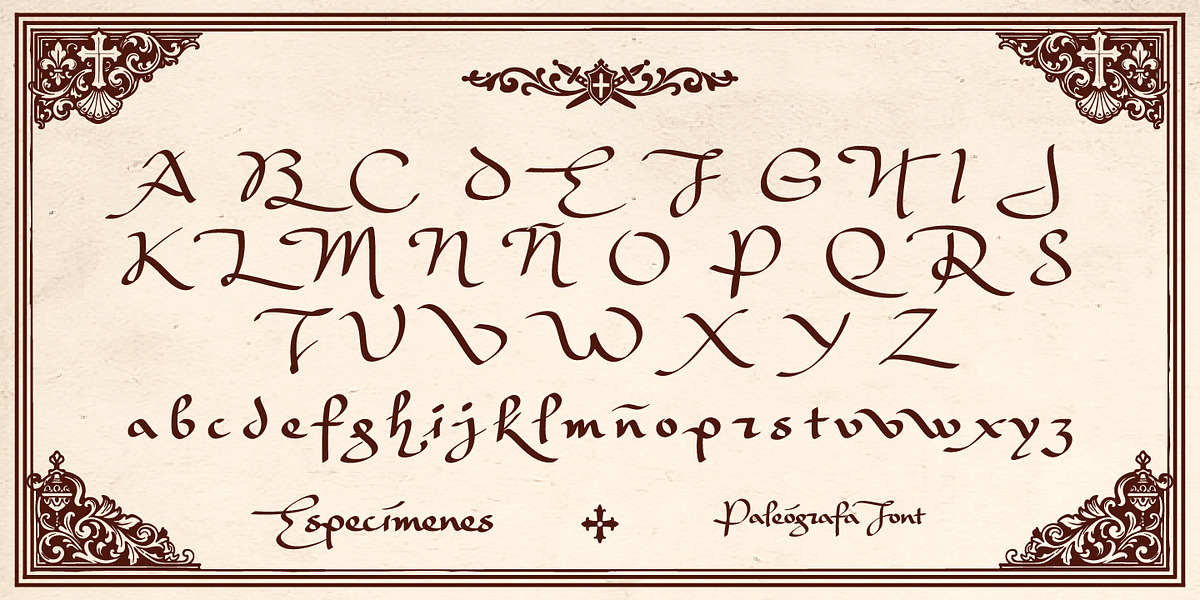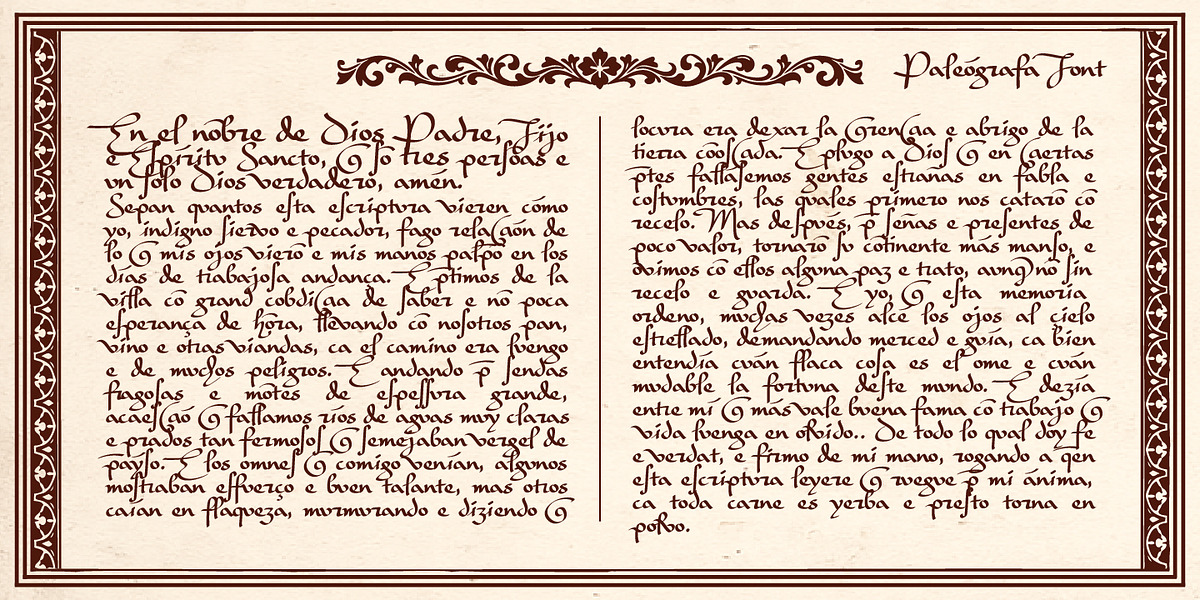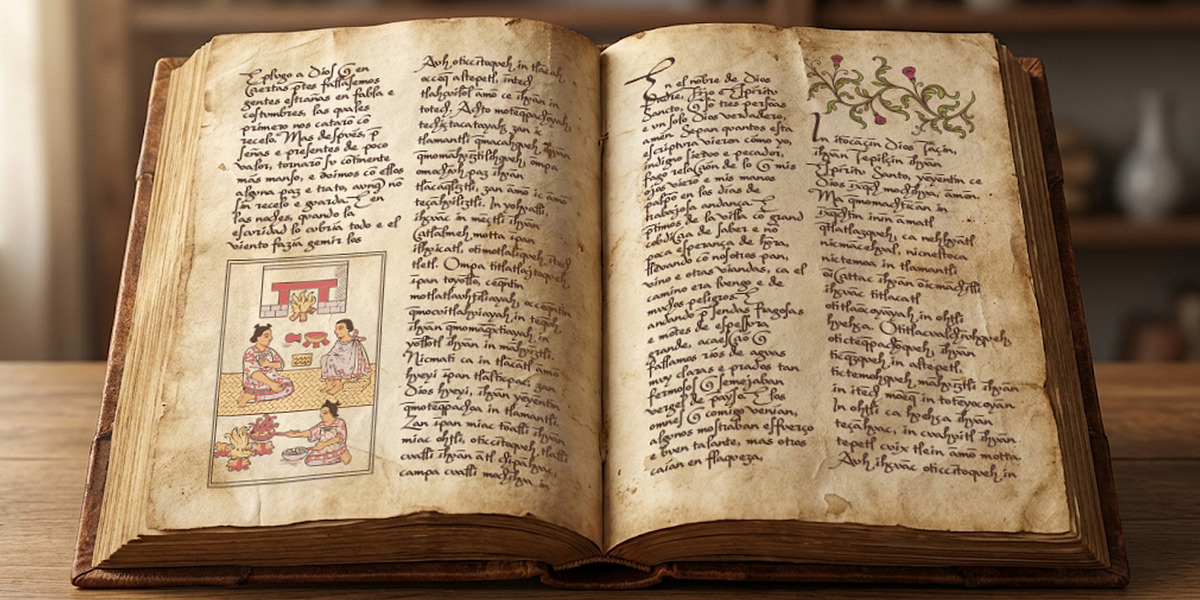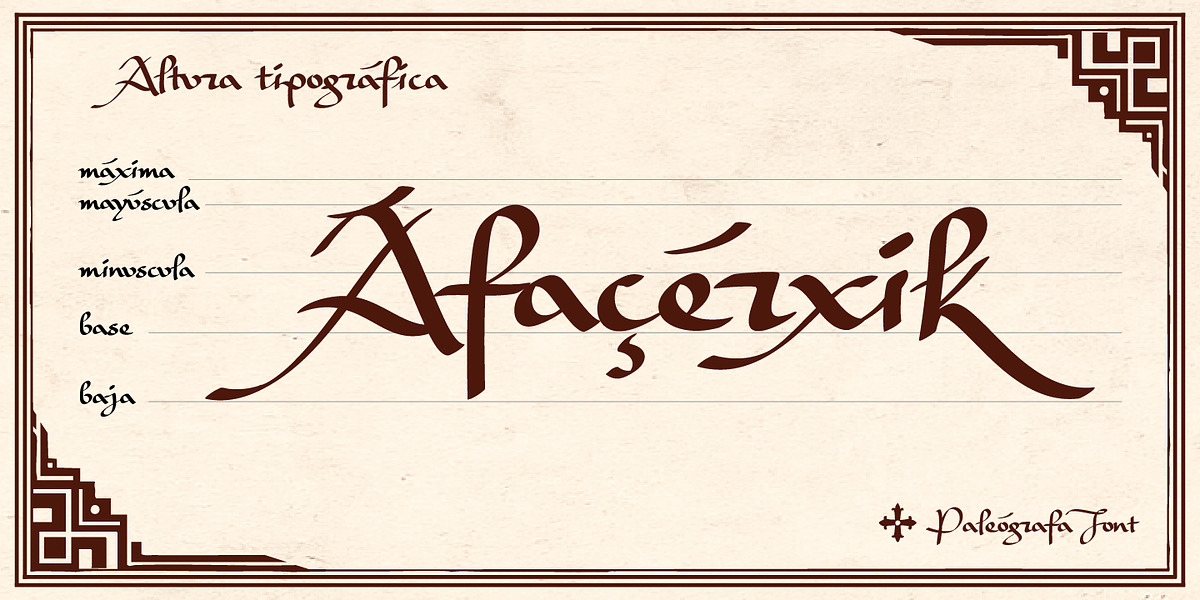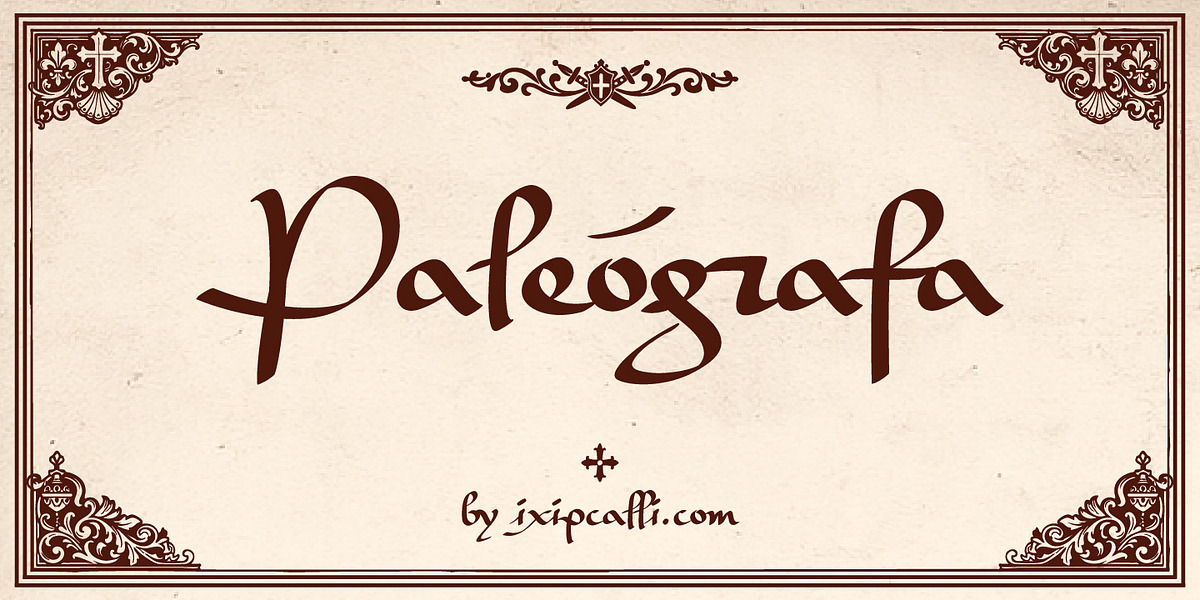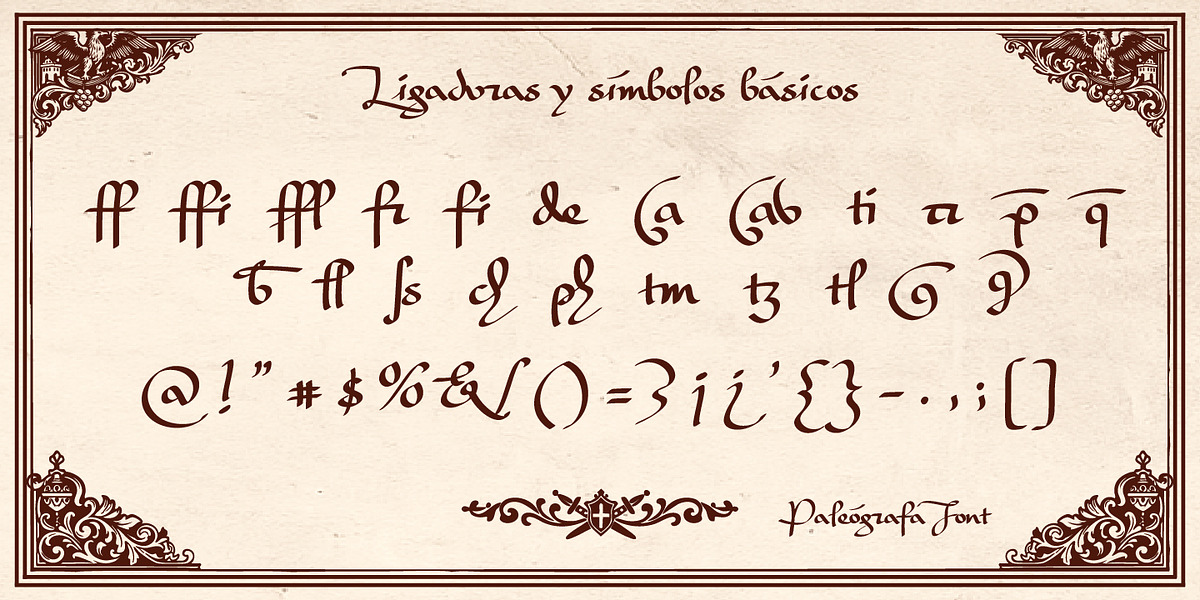
Paleografa
Paleógrafa is a paleographic-inspired typeface created in 2026 that evokes the visual richness of ancient manuscripts. Its organic and carefully irregular strokes reproduce the lively texture of handwriting, preserving details characteristic of the colonial tradition and historical texts from the 15th and 16th centuries. Designed for editorial, academic, and artistic projects, it brings authenticity and character, balancing historical fidelity with contemporary legibility.